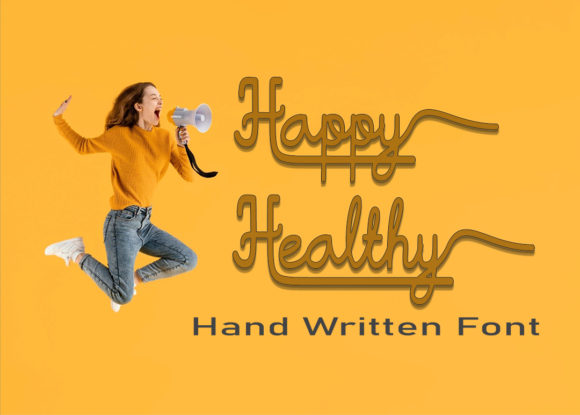
Happy Healthy Font: Infusing Playful Energy into Your Projects
A Typeface with a Natural, Energetic Flow
In a world saturated with rigid, geometric sans serif fonts and overly formal serif typefaces, finding a typeface that genuinely conveys warmth, approachability, and vitality can feel like a challenge. Enter Happy Healthy Font, a creative font designed to break away from the corporate mold. As a premium font in the handwritten font category, it offers a distinct visual rhythm that feels less like a digital output and more like a personal touch. This is not a static typeface; it is a dynamic script font featuring charming, playful characters that seem to dance along the baseline. The fluidity of the strokes gives it a human quality, making it an excellent choice for designers looking to inject personality into their work without sacrificing the polish required for professional brand identity projects.
What makes this Happy Healthy Font particularly versatile is its technical backbone. Despite its whimsical appearance, it is a robust commercial font engineered for ease of use. It is fully PUA encoded, which stands for Private Use Areas. For the uninitiated, this is a technical guarantee that ensures every single glyph, swash, and stylistic alternate is accessible regardless of the software you are using. Whether you are working in Adobe Illustrator, Photoshop, or even basic text editors that support character maps, you can unlock the full potential of the typeface. This accessibility makes it a practical asset for small business owners, bloggers, and marketers who may not have advanced design software but still want high-end typographic results.
Visual Personality: Dancing Characters and Friendly Curves
The core appeal of the Happy Healthy Font lies in its visual weight and character construction. Unlike many modern typography trends that favor sharp corners and minimalism, this font embraces soft curves and a bouncy baseline. The "dancing" effect is achieved through slight variations in vertical alignment and stroke width, mimicking the natural inconsistencies of hand-lettering. This style is often referred to as a display font because it is optimized for impact rather than long-form reading. It commands attention at larger sizes, making it perfect for headlines, subheadings, and focal points in a layout.
When evaluating a premium font like this, it is helpful to look at its specific stylistic traits. Happy Healthy Font features:
- Organic Shapes: The letterforms avoid perfect circles, instead using oval shapes that feel hand-drawn.
- Variable Stroke Width: The lines thicken and thin out naturally, adding texture and depth to the text.
- Decorative Swashes: Because of the PUA encoding, you can easily add flourishes to the beginnings and ends of words, creating a signature look for logos or packaging.
- Playful Kerning: The spacing between letters is loose and airy, contributing to the "healthy" and open aesthetic of the design.
This combination of features makes the typeface feel approachable. It avoids the "scratchy" look of some handwritten fonts, which can sometimes feel chaotic. Instead, Happy Healthy Font maintains a legibility that is crucial for marketing materials, ensuring that the message is conveyed clearly even as the design remains playful.
Strategic Applications: Where Happy Healthy Font Shines
Understanding where to deploy a script font is just as important as the font itself. Because Happy Healthy Font has such a strong personality, it works best in specific contexts where its energy can be harnessed without overwhelming the viewer.
Branding and Logo Design
For entrepreneurs and designers working on logo design, this typeface is a strong contender for brands in the wellness, lifestyle, food, beauty, or children’s sectors. A yoga studio, a vegan bakery, or a boutique clothing line could use this font to instantly communicate a brand voice that is friendly, organic, and customer-centric. When used in a logo, it creates an immediate emotional connection, suggesting that the brand is run by real people rather than a faceless corporation.
Packaging and Print Design
In packaging design, shelf appeal is everything. Happy Healthy Font can be used to highlight product names or key ingredients on labels. Imagine a jar of artisanal honey or a line of natural soaps; this font style suggests craftsmanship and care. For publishers and crafters, it is equally effective for stationery, greeting cards, and wedding invitations, where a personal touch is paramount.
Digital and Editorial Design
While it is a display font, it has a place in digital spaces. Content creators and social media managers can use it for Instagram quotes, Pinterest graphics, and YouTube thumbnails. The bounce in the letters catches the eye while scrolling, increasing engagement rates. In editorial design, it serves as a counterpoint to clean body text. For example, a lifestyle magazine might use a serif font or a sans serif font for the body copy but pull quotes or section headers in Happy Healthy Font to break up the monotony and add visual interest.
Mastering the Art of Font Pairing
No font is an island, and the true test of a premium font is how well it plays with others. Font pairing is the practice of combining two or more typefaces to create a harmonious hierarchy. Because Happy Healthy Font is ornate and expressive, it generally should not be paired with another script or highly decorative font, as this will create visual noise and confusion.
The most effective strategy is contrast. To let Happy Healthy Font shine as the star of your brand identity, pair it with a supportive, neutral partner.
- Pair with a Clean Sans Serif: Fonts like Montserrat, Lato, or Open Sans provide a modern, clean backdrop. The neutrality of the sans serif allows the personality of the script to pop without competition. This is ideal for web design and social media graphics.
- Pair with a Traditional Serif: For a look that balances whimsy with authority, try a classic serif like Garamond or Georgia. This works well for editorial design and publishing, where you want to maintain a sense of tradition but add a touch of modern warmth.
When establishing your visual hierarchy, use Happy Healthy Font for H1 headers, logos, or call-to-action buttons. Use your secondary font for body text, captions, and metadata. This ensures that your design remains readable while still retaining that "happy" energy.
Practical Considerations for Professional Use
Before integrating any commercial font into your workflow, there are practical steps to ensure it fits your project's needs. First, consider the licensing. As a commercial font, Happy Healthy Font is designed for professional use, but always verify the specific license terms regarding print run limits, web embedding, or app development to ensure compliance.
Second, test for readability. While it is legible for headlines, avoid using this script font for small body text (under 14pt) or over complex, busy backgrounds. The intricate swashes can become muddled at small sizes. Always view the font at the actual size it will be printed or displayed to check for clarity.
Finally, explore the glyphs. Since it is PUA encoded, take the time to access the character map in your operating system or the glyphs panel in your design software. You may find alternate lowercase letters or decorative elements that can elevate a standard word into a piece of art. This is particularly useful for monograms or initial caps in logo design.
By treating Happy Healthy Font not just as a collection of letters but as a strategic design asset, you can leverage its charming, dancing characters to create projects that feel authentic, energetic, and professionally crafted. Whether you are a blogger refreshing your site or a marketer